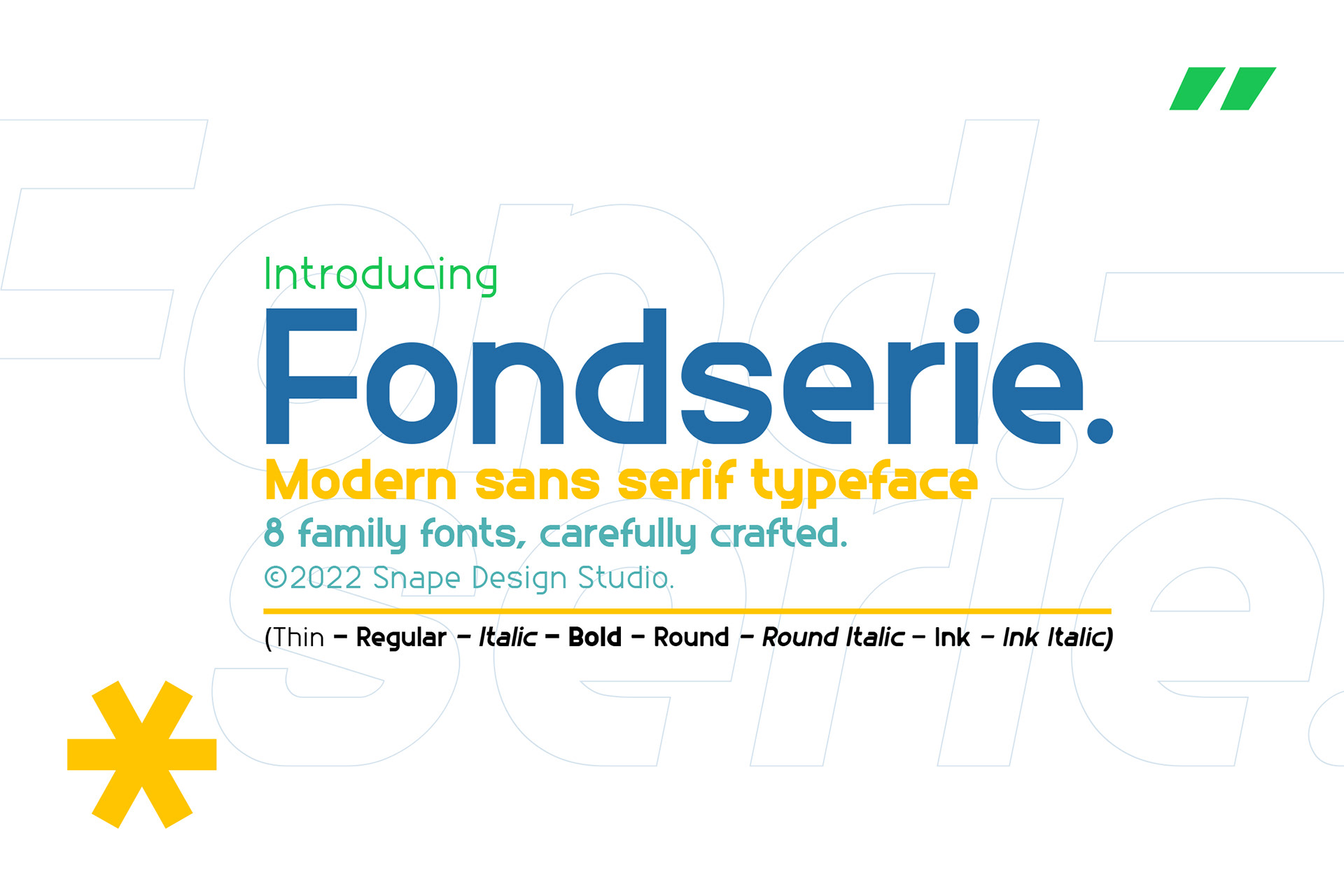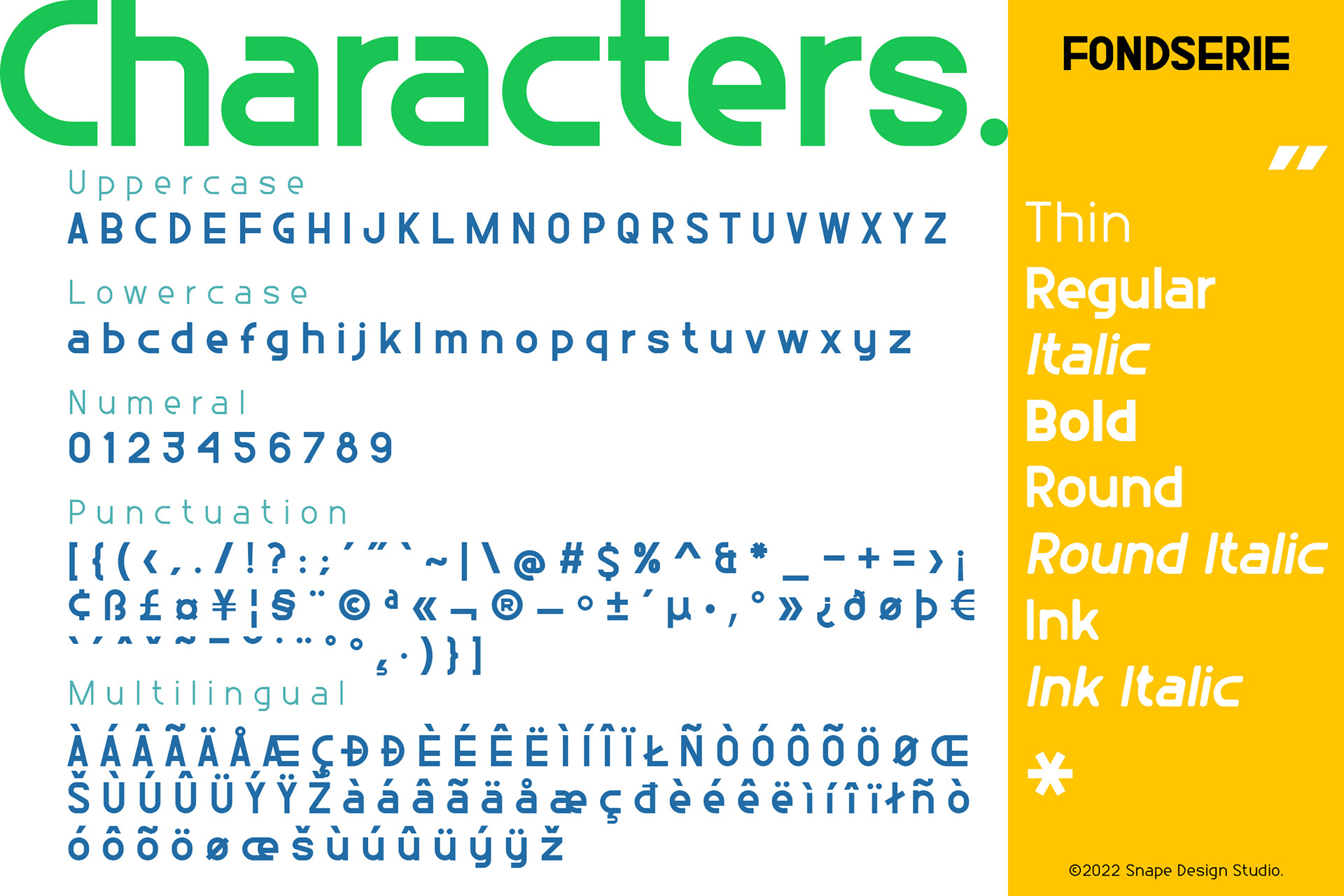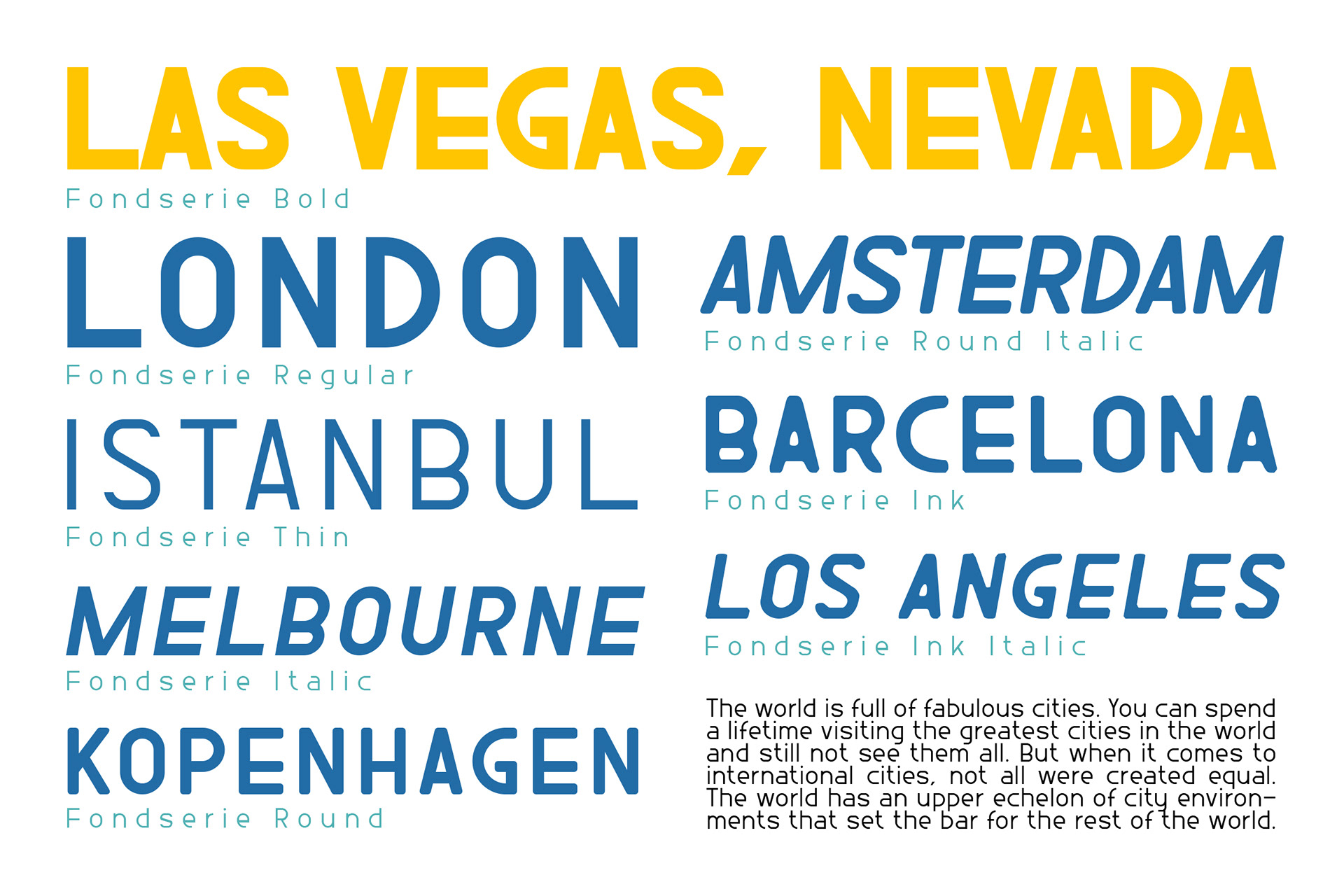
Fondserie is a modern sans serif. The key of this all-caps family is simple straight geometric forms and modernized letterforms. The modernized look makes this family great to presents any contents related to travel, history & culture in the present/modern way. This display family is perfect for headlines, posters, logos, branding projects, magazines, packaging, title and many more projects. Add this font to your creative ideas and notice how it will make them stand out!